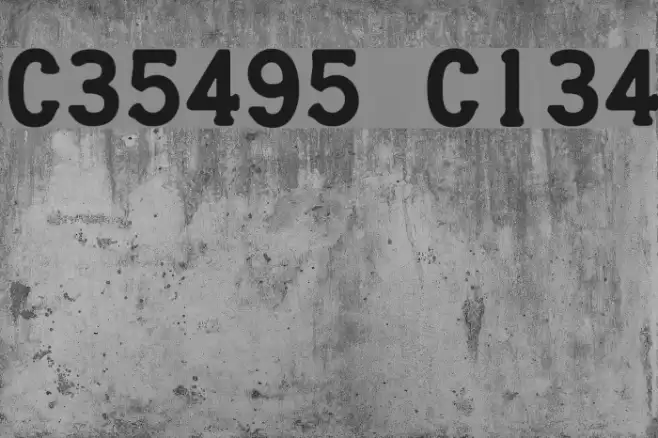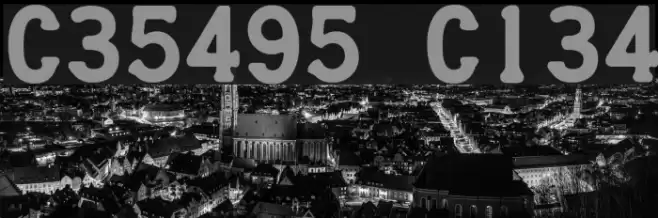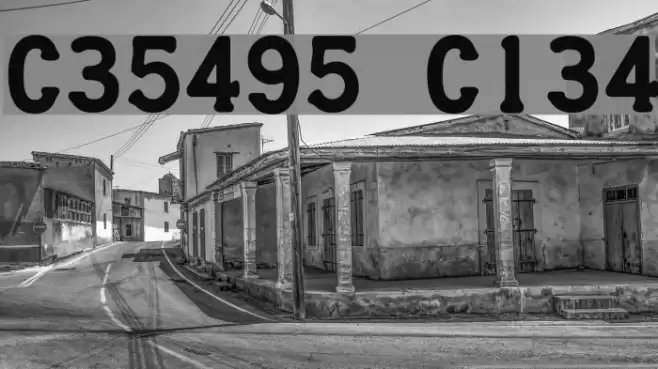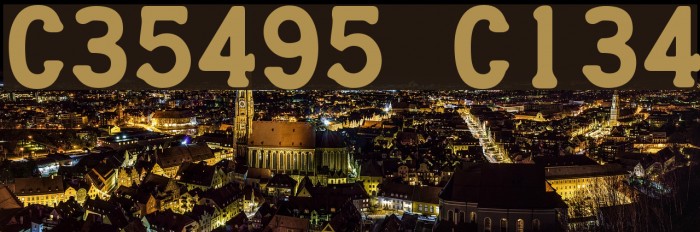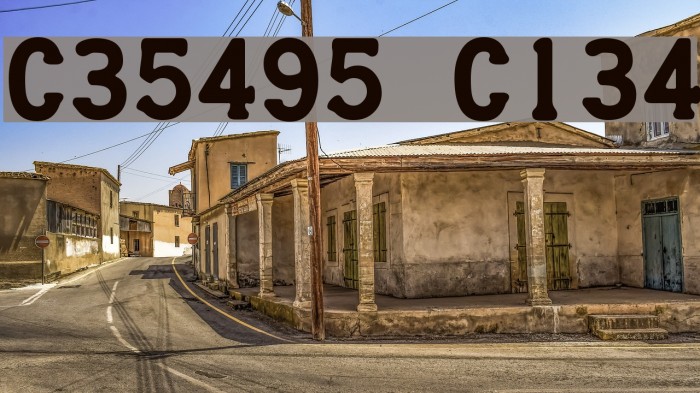
Credit Card Font
Credit Card Description
This font features bold, rounded characters with a playful and approachable style. The letters are evenly spaced and have a consistent stroke width, giving them a uniform appearance. The uppercase letters are prominent and slightly condensed, while the lowercase letters maintain a similar width, ensuring readability. The numbers are clear and distinct, making them suitable for various applications. Special characters are well-defined, adding versatility to the font. The overall design is modern and friendly, making it ideal for projects that require a touch of personality.
A bold, rounded font with a playful and modern style from Uncategorized fonts.
- Proposed Projects: Ideal for children's books, playful branding, casual invitations, and friendly user interfaces.